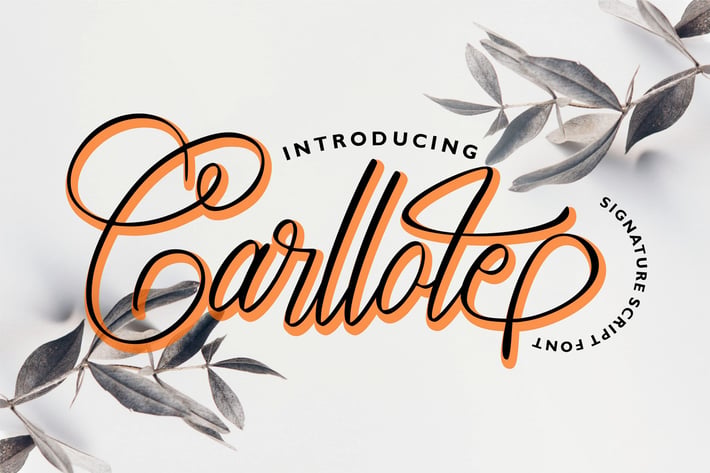
Carllote | Signature Script Font
Carllote | Signature Script Font with a calligraphy style, So beautiful on invitation like greeting cards, branding materials, business cards, quotes, posters, and more!